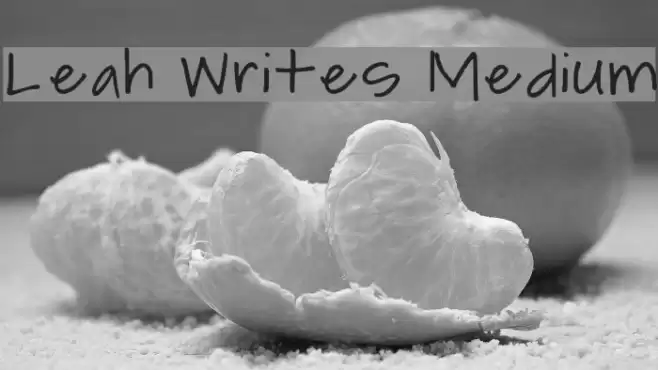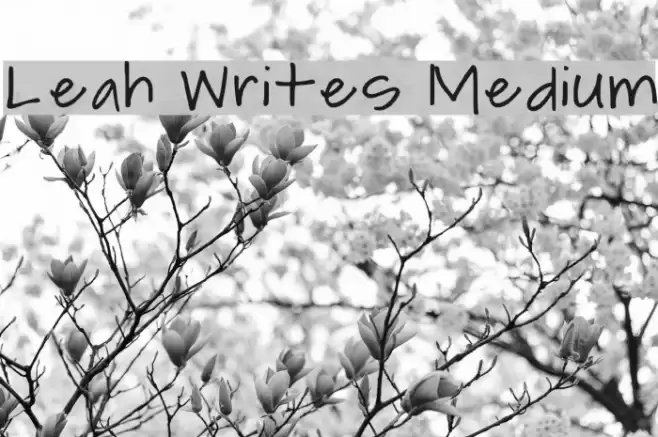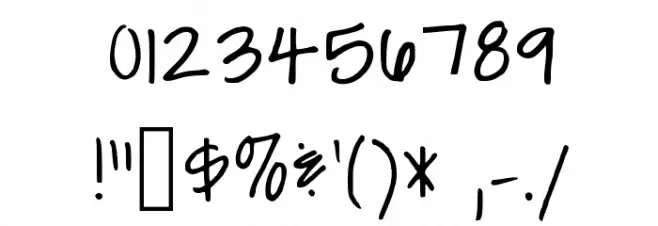
Leah Writes Medium Font
Leah Writes Medium Description
This font exudes a casual and friendly handwritten style, characterized by its smooth, flowing lines and slightly irregular shapes that mimic natural handwriting. The letters are well-spaced, providing a clear and legible appearance, while maintaining a playful and informal tone. The uppercase and lowercase letters are distinct, with a slight slant that adds to the handwritten feel. The numerals and special characters are consistent with the overall style, ensuring a cohesive look across all text elements. This font is perfect for projects that require a personal touch, such as invitations, greeting cards, or casual branding.
A casual, handwritten-style font with smooth, flowing lines and a playful tone from Handwritten fonts.
- Proposed Projects: Ideal for invitations, greeting cards, personal branding, and casual design projects.
- Overall Style: Casual, Playful
- Use Case: Headlines, Informal text, Personal projects